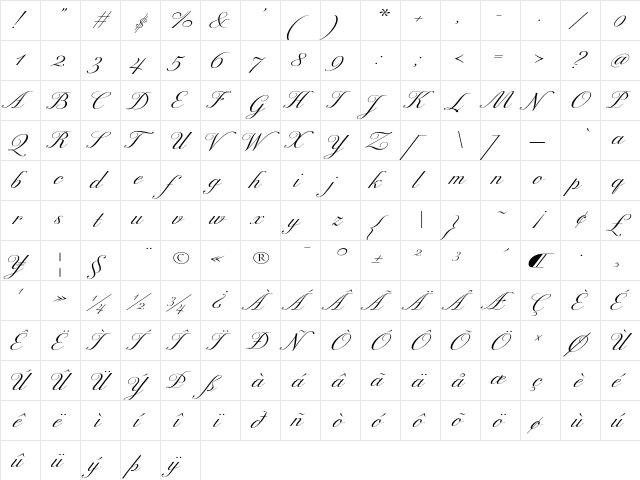
Excelsor Script Italic
| Foundry | Frantisek Storm. stormtype.com |
Design Context for Excelsor Script Typeface
Excelsor Script flows with the natural rhythm of handwritten lettering, making it ideal for designs that call for warmth and personal expression.
Font Pairing: Combine Excelsor Script with a simple geometric sans for maximum contrast — the tension between flowing curves and clean structure is a classic typographic pairing.
Pro Tip: Use Excelsor Script for short runs of text — names, titles, or taglines. Extended body copy in script faces tires the eye quickly.